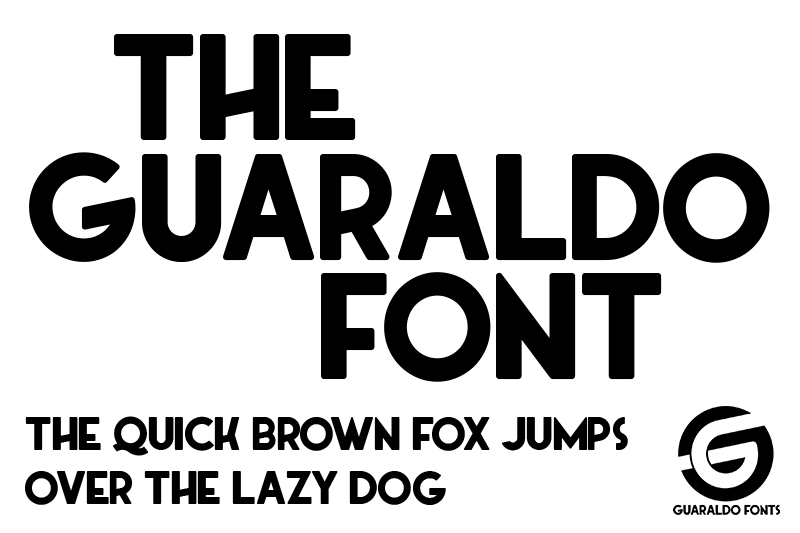
Font name: | Guaraldo |
Author: | Mathias Guaraldo |
Note by Mathias Guaraldo | |
This is my first font. Kinda art deco, mixed up with some modern inspirations. Guaraldo Font includes Q, A, S, G e B variations. Hope you enjoy it! |